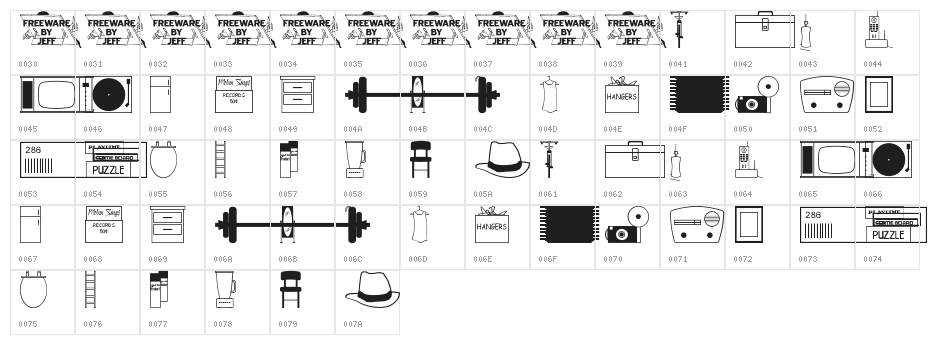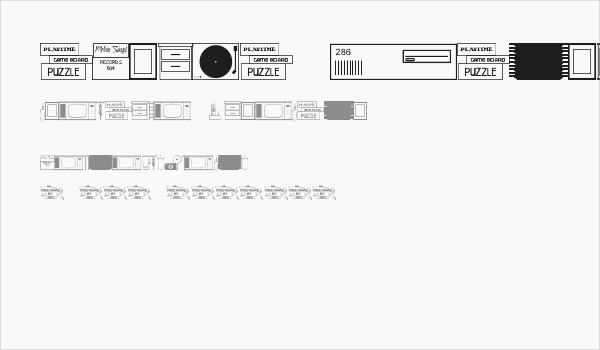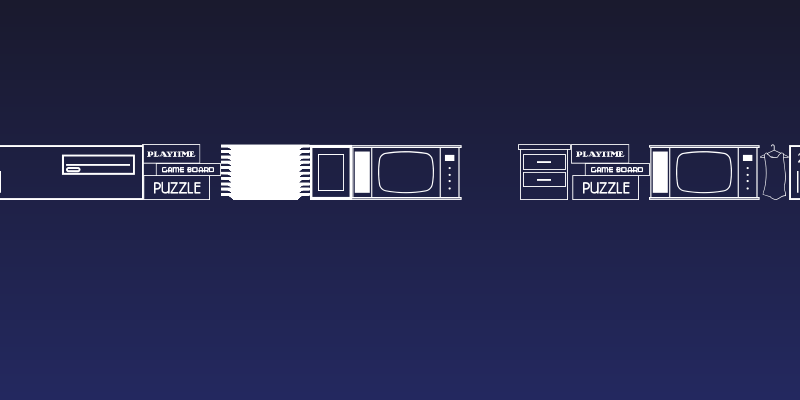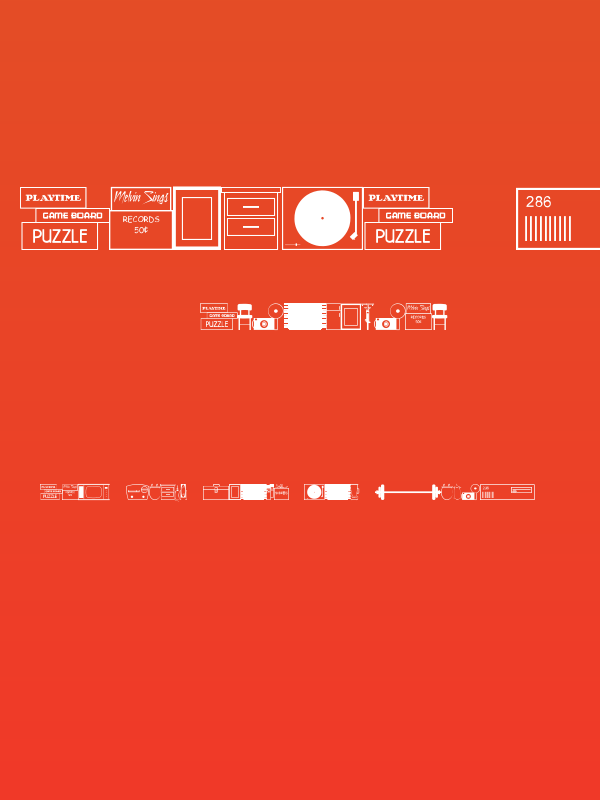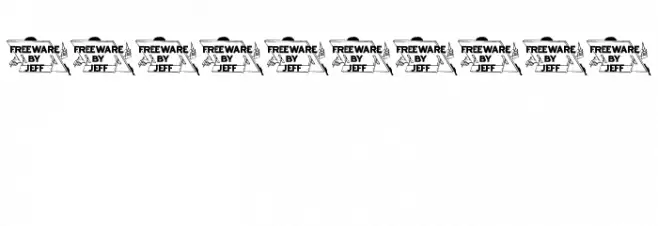
Thrift Store Items JL Font
A decorative font composed of illustrated thrift store items such as suitcases, electronics, records, hangers, hats, and various household objects, arranged to form each character. The style is playful and detailed, with each glyph resembling a collection of secondhand goods.
| Overall Style | Decorative, Playful, Whimsical |
| Use Case | Logos, Headlines, Posters, Themed Graphics |
| Proposed Projects | Posters for thrift shops, event flyers, themed party invitations, creative branding for secondhand stores. |